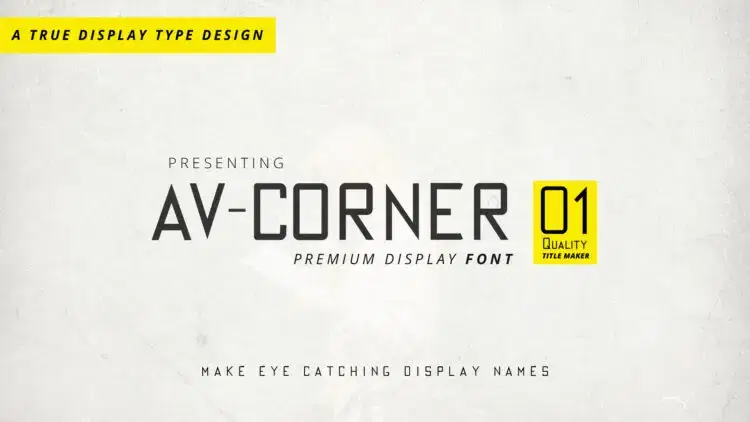
AV Corner Tall And Thin Title Making Font
AV Corner tall and thin title making font is our latest creation for the graphic designers who love to create a vibrant title or headline of their client’s product line.  AV Corner tall and thin font has its heigh thin look which makes your titles and headline distinguished from other text used on your designs.
If you want to design your product packaging, flyer, banner, brochure or logo this AC Corner font is your ultimate solution.